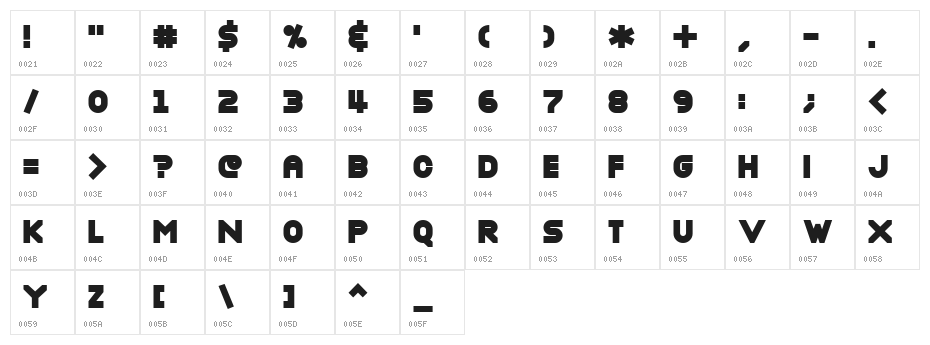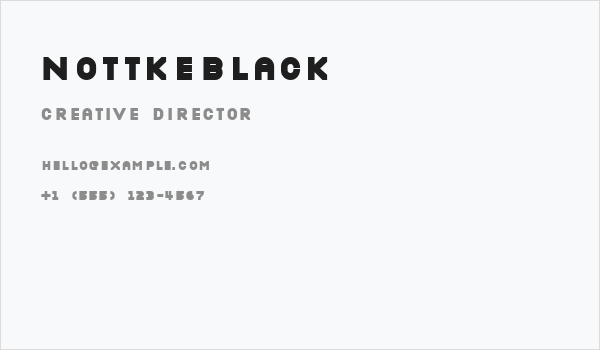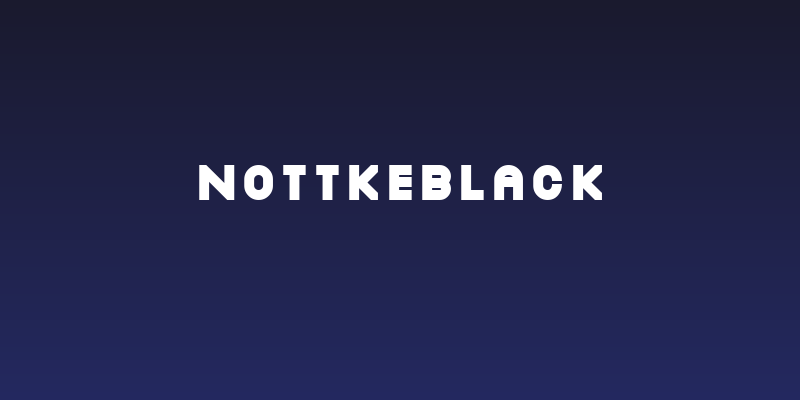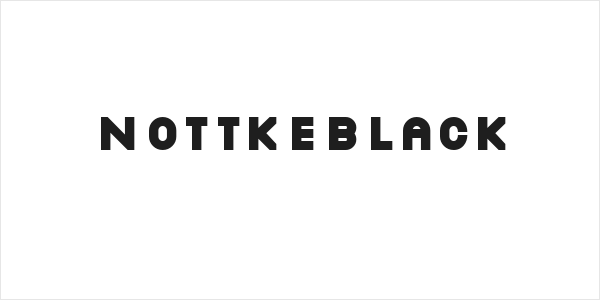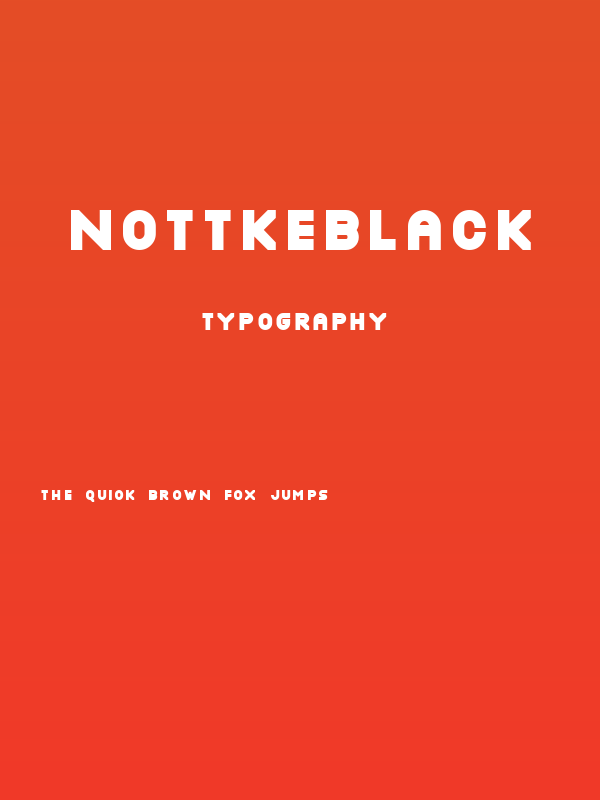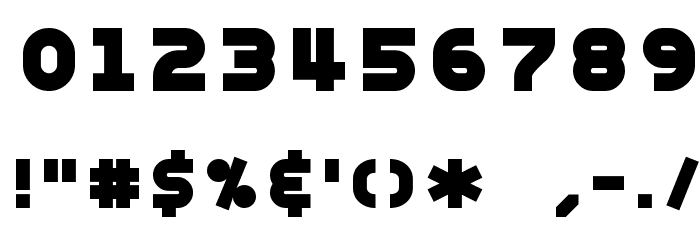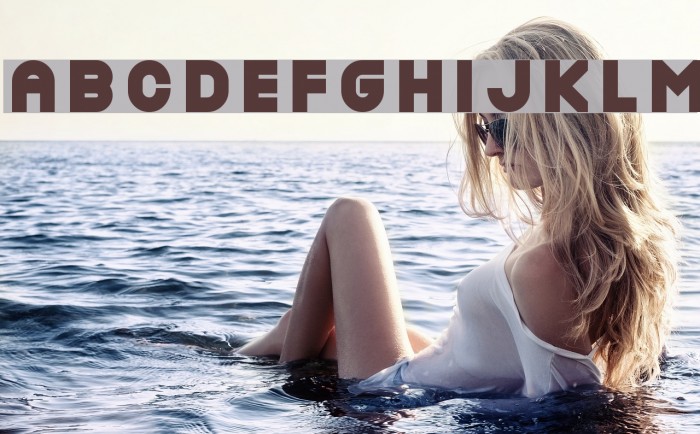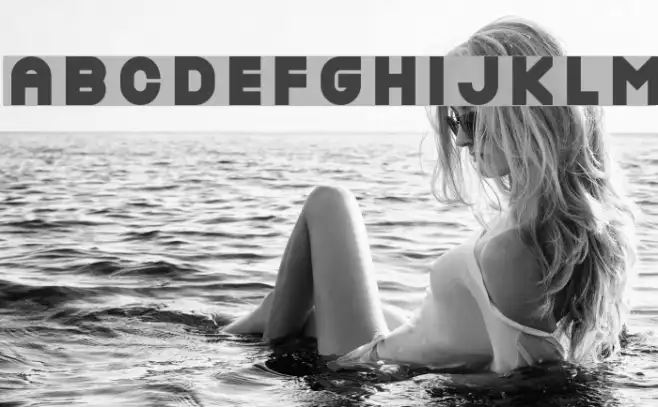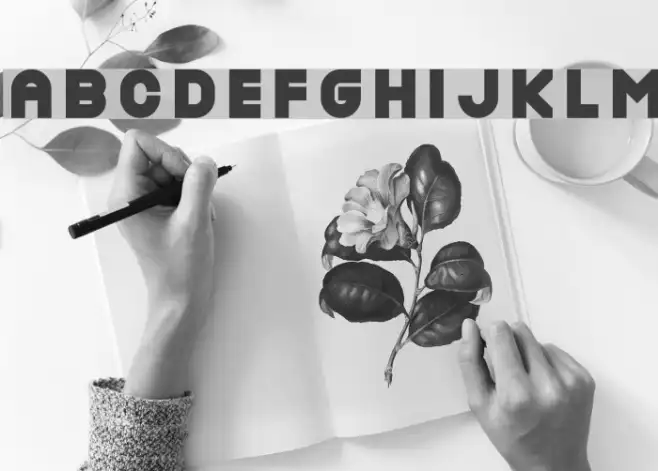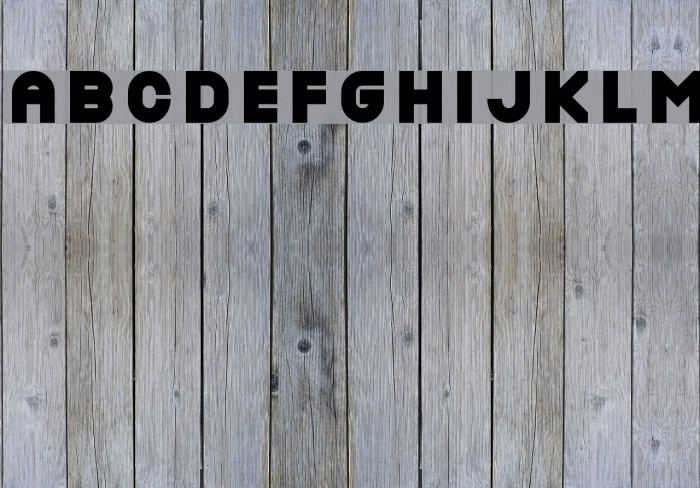
NottkeBlack Font
NottkeBlack Description
This font exhibits a bold and assertive style, characterized by thick, uniform strokes that convey strength and stability. The letters are well-defined with a geometric structure, featuring rounded edges that soften the overall appearance. The uppercase and lowercase letters maintain a consistent width, creating a harmonious and balanced look. The numerals are equally robust, ensuring readability and impact. Special characters are designed with the same boldness, making them stand out effectively. This font is ideal for making a strong visual statement.
| Proposed Projects | Ideal for branding, posters, headlines, and any design requiring a strong visual impact. |